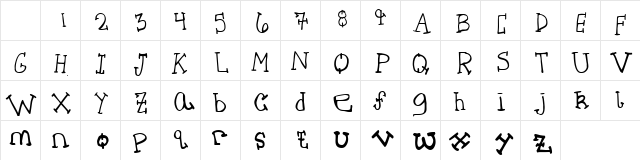
Through The Ivy SemiBold
Design Context for Through The Ivy Typeface
Through The Ivy embraces imperfection — its rough, textured character adds raw authenticity to designs that want to feel lived-in and unconventional.
A strong fit for alternative music projects, graffiti-adjacent design, and anything that deliberately resists polish.
Pro Tip: Use Through The Ivy at larger sizes where the texture and irregularity of each letterform can be clearly seen — it loses its character at small sizes.